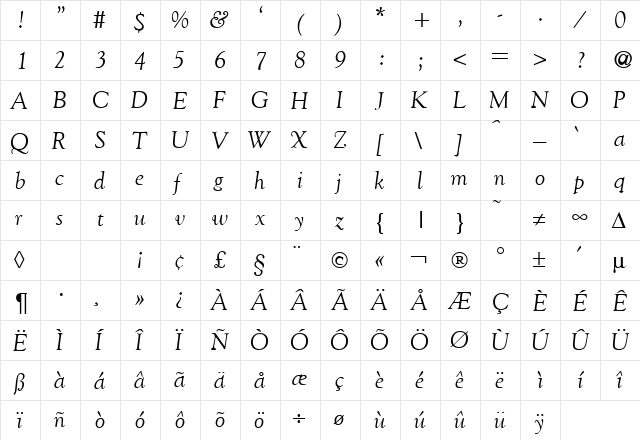
GoudyOldStyleTwo RegularItalic
Design Context for GoudyOldStyleTwo Typeface
GoudyOldStyleTwo carries the refined structure of traditional serif typography, with bracketed terminals and considered proportions that communicate credibility and craft. Its italic angle brings a sense of urgency and motion to the letterforms.